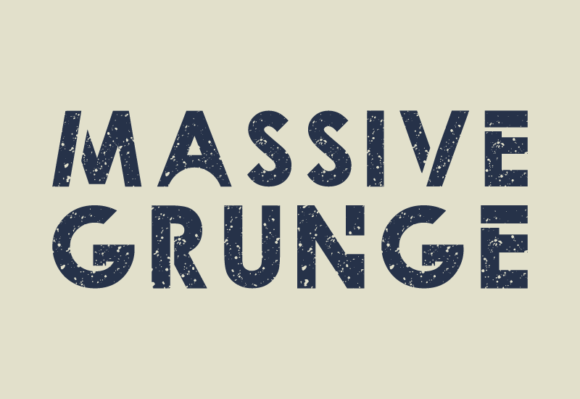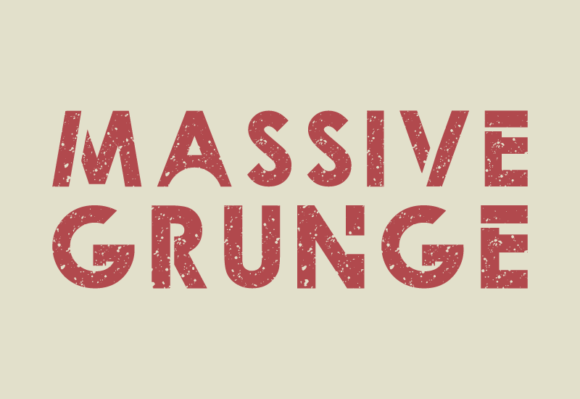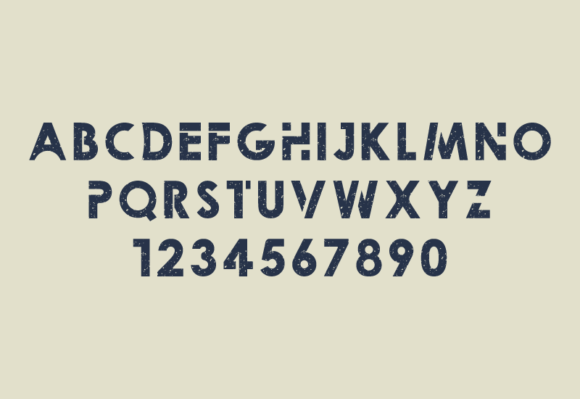
Introduction to Massive Grunge Font Font
Fonts play a crucial role in design, and the Massive Grunge Font font is a typeface that brings both character and versatility to any project. Whether you’re working on a branding project, a website, or a print design, the Massive Grunge Font font offers a unique style that can elevate your work.
Dare to defy the ordinary with our ‘Massive Grunge’ display font.
Notorious for its daringly distinct design, Massive Grunge is far more than merely a font Each of its raw, unrefined lines brims with a rugged texture, imparting an atmosphere of toughness and rebellion.
Key Features of Massive Grunge Font Font
Why Choose Massive Grunge Font Font?
The Massive Grunge Font font is more than just a typeface – it’s a design tool that helps you communicate your message with style and clarity. Its unique character set and versatile design make it suitable for a wide range of applications, from elegant invitations to bold headlines.
With its carefully crafted letterforms and balanced proportions, the Massive Grunge Font font ensures readability and visual appeal across all mediums.
What makes Massive Grunge Font font special?
The Massive Grunge Font font stands out with its unique design, exceptional readability, and versatility across various design applications.